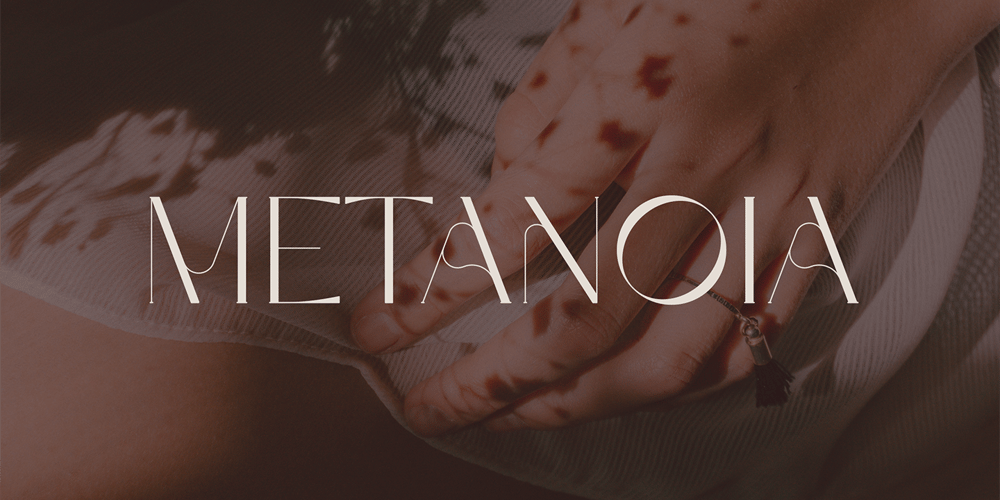
Metanoia
Metanoia font
Metanoia Font Family was designed by Vladimir Fedotov, Plamen Petrov and published by VP Creative Shop. Metanoia contains 1 styles and family package options. Introducing Metanoia – Display fontMetanoia is creative and elegant font with multilingual support. It’s a very versatile font that works great in large and small sizes.This font is perfect for branding projects, home-ware designs, product packaging, magazine headers – or simply as a stylish text overlay to any background image.FEATURES Uppercase, numeral, punctuation & Symbol Multilingual support No special software is required to type out the standard characters of the Typeface. Canva friendly Feel free to contact me if you have any questions!Mock ups and backgrounds used are not included.Thank you! Enjoy!